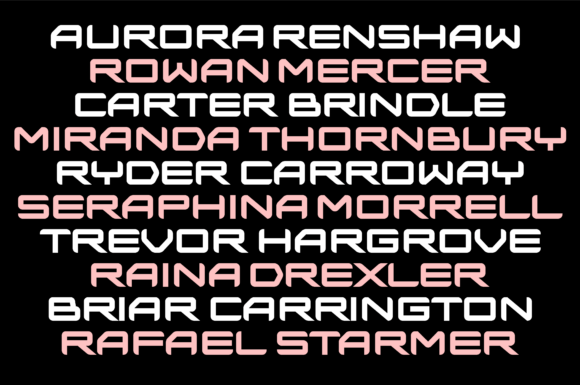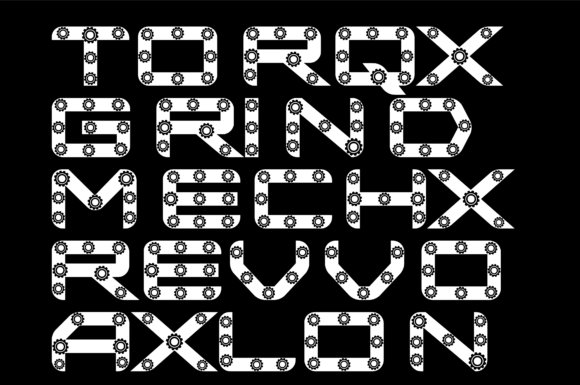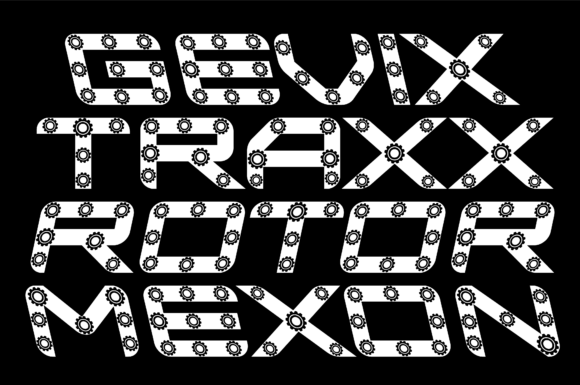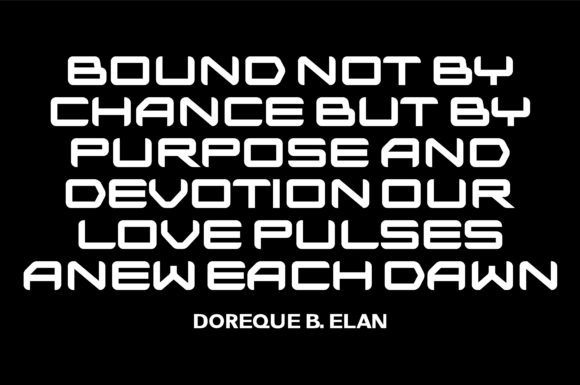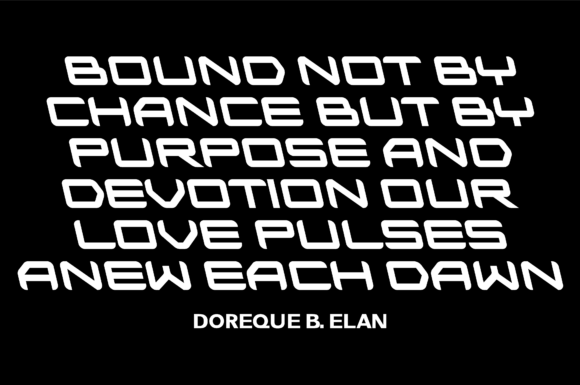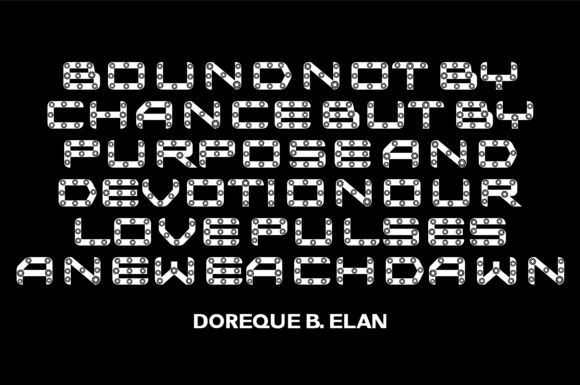
Introducing Gear Font: Elevate Your Design with Precision and Style
Step into the captivating realm of typography with Gear, a masterfully crafted sans serif grotesque font collection. This striking compendium radiates clean, bold, geometric architecture, the essence of which is rooted in German and Swiss design principles.
The Essence of Gear Font
Gear presents a portfolio of styles including Regular, Italic, and Retalic, along with exquisitely decorated versions of each, providing agile flexibility across a spectrum of design landscapes. The font’s design is characterized by its smooth, poised lines, which make it an ideal choice for finer materials such as perfume labels, cosmetics packaging, magazine facades, and luxury poster designs.
Unerring Vitality in Every Word and Line
From persuasive manifestos and brochures to engaging social media posts, Gear imbues every word and line with unerring vitality. The font’s distinct class and refinement will promptly earn it a revered place among your favorite design instruments. Whether you’re a designer, craftsperson, or simply a typography enthusiast, Gear is sure to impress with its versatility and precision.
Key Features of Gear Font
• Multiple Styles: Gear offers a range of styles, including Regular, Italic, and Retalic, allowing you to experiment with different looks and feels.
• Geometric Architecture: The font’s design is rooted in German and Swiss design principles, giving it a clean, bold, and geometric aesthetic.
• Exquisitely Decorated Versions: Each style comes with beautifully decorated versions, adding an extra layer of creativity to your designs.
• Flexibility: Gear is suitable for a wide range of design applications, from luxury branding to social media graphics.
Applications of Gear Font
Gear’s versatility makes it an excellent choice for various design projects, including:
• Luxury Branding: Use Gear to create stunning perfume labels, cosmetics packaging, and other luxury brand materials.
• Magazine and Poster Design: The font’s clean lines and geometric aesthetic make it perfect for magazine facades and luxury poster designs.
• Social Media Graphics: Gear’s bold, attention-grabbing style is ideal for creating engaging social media posts and graphics.
• Brochures and Manifestos: The font’s persuasive and confident tone makes it suitable for brochures, manifestos, and other marketing materials.
Why Choose Gear Font?
With Gear, you can elevate your design game with a font that exudes precision, style, and sophistication. Here are just a few reasons why Gear stands out:
• Unique Aesthetic: Gear’s geometric architecture and clean lines give it a distinctive look that sets it apart from other fonts.
• Flexibility: The font’s multiple styles and decorated versions make it adaptable to a wide range of design applications.
• High-Quality Design: Gear is crafted with attention to detail, ensuring a high-quality design that will enhance your projects.
In conclusion, Gear Font is a masterfully crafted sans serif grotesque font collection that offers a unique blend of style, precision, and flexibility. With its geometric architecture, multiple styles, and exquisitely decorated versions, Gear is an excellent choice for designers, craftspersons, and typography enthusiasts alike. Whether you’re working on luxury branding, magazine design, or social media graphics, Gear is sure to elevate your design game and leave a lasting impression.